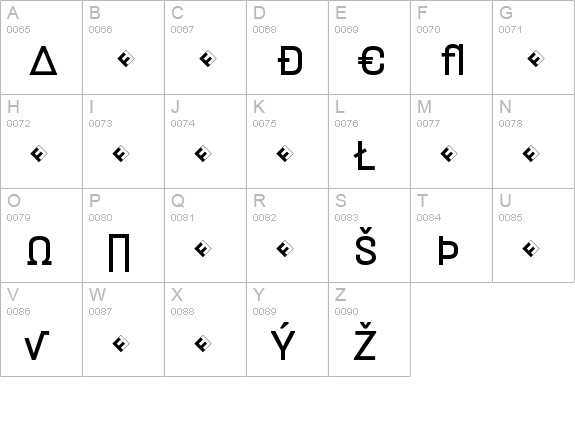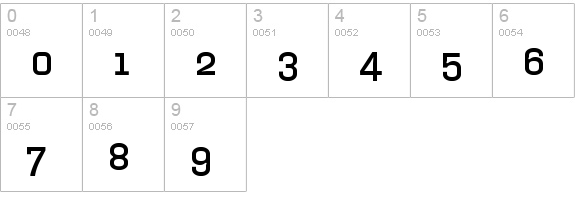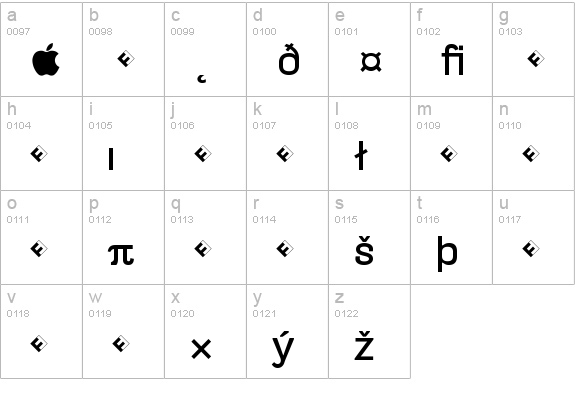
HydraText-BoldExpert Font Details
Introducing HydraText-BoldExpert font, a versatile and modern typeface that exudes sophistication and style. With its bold and expertly designed characters, this font is perfect for making a statement in any design project. Whether you're creating eye-catching logos, sleek branding materials, or striking headlines, HydraText-BoldExpert font is sure to elevate your work to the next level. The best part? HydraText-BoldExpert font is completely free to download at FontsMarket.com, making it easily accessible for all designers and creatives looking to add a touch of elegance to their projects. Don't miss out on the opportunity to enhance your designs with this stunning font that is both professional and visually appealing. Download HydraText-BoldExpert font today and unleash your creativity like never before.